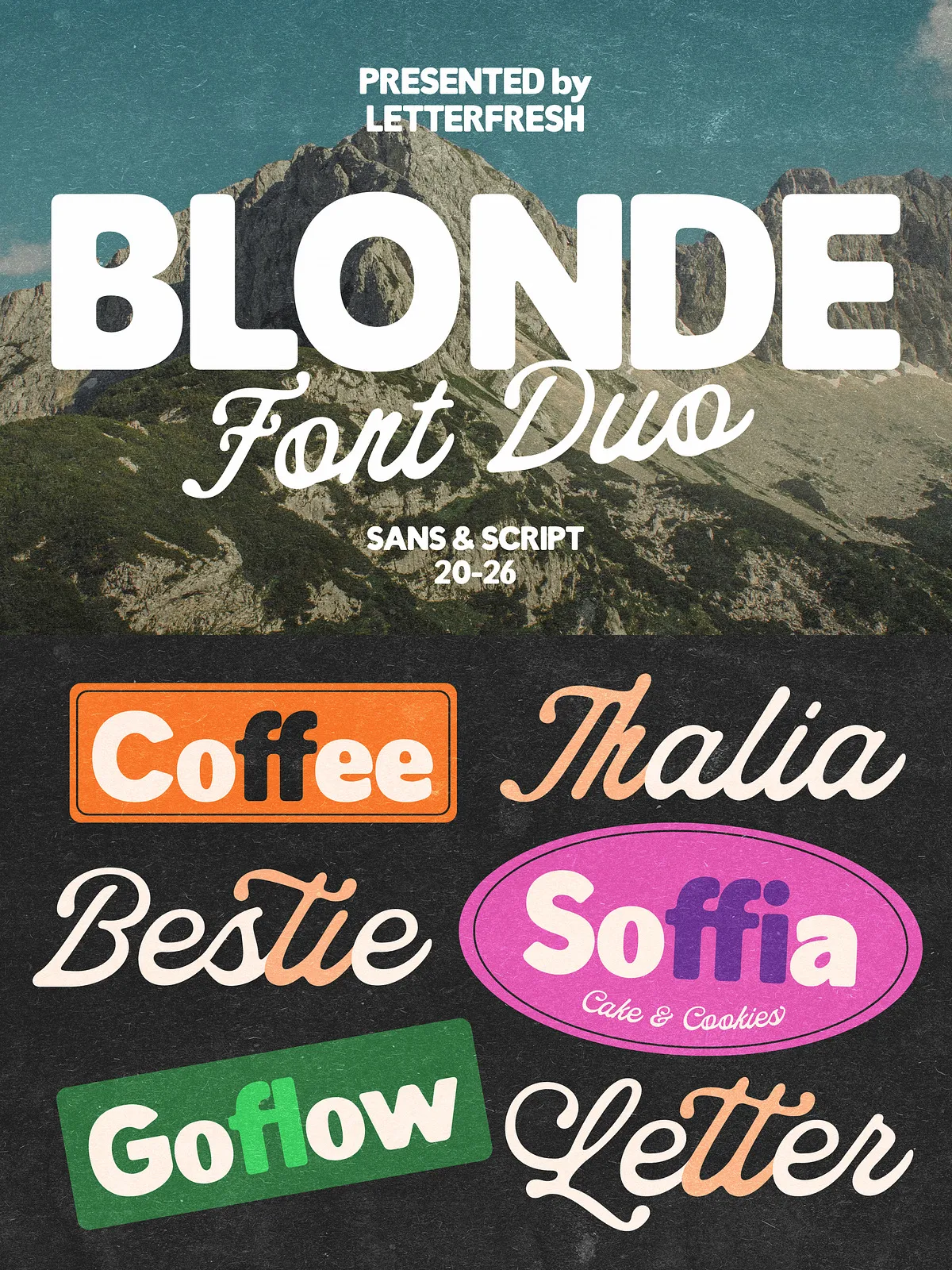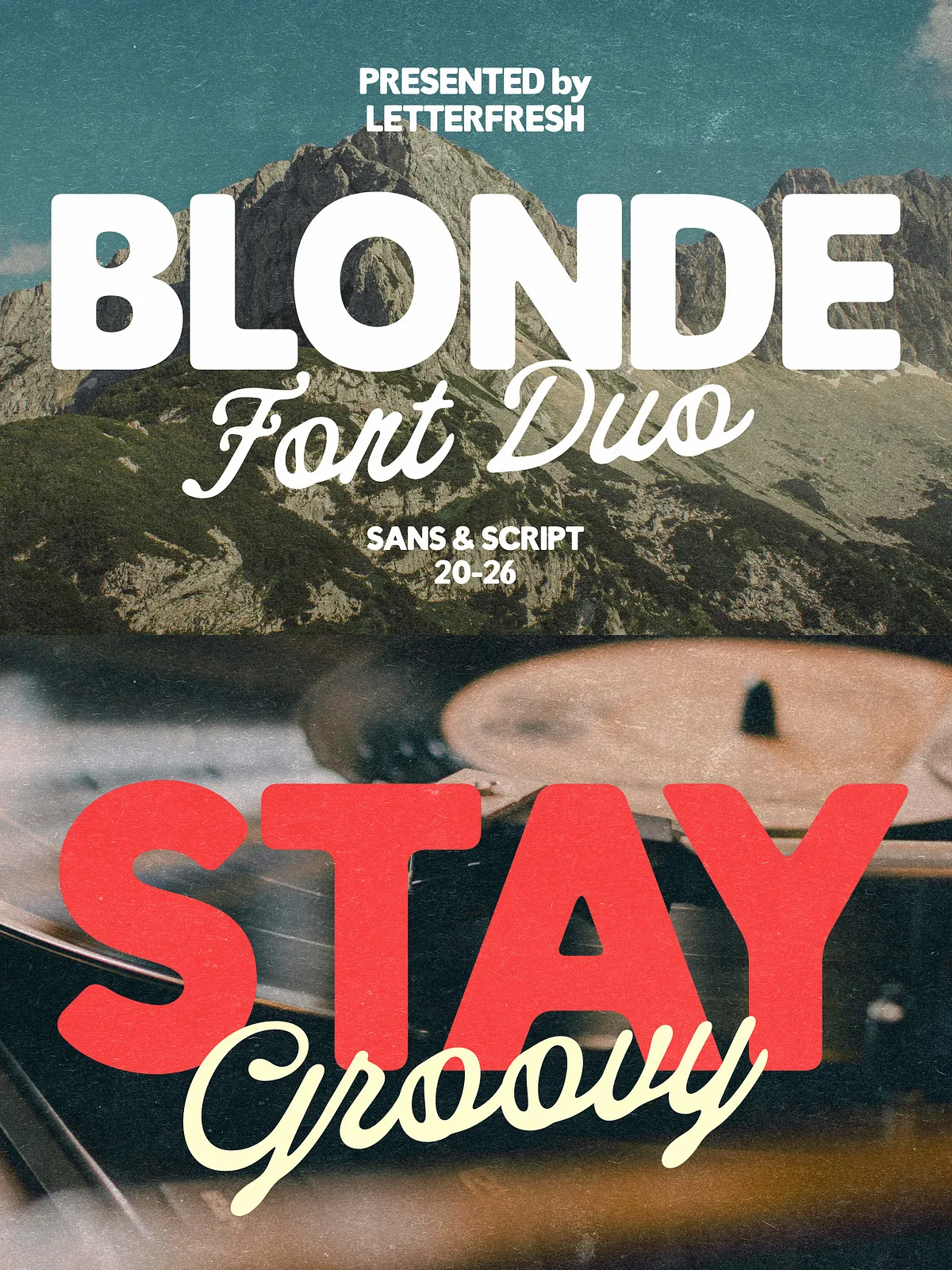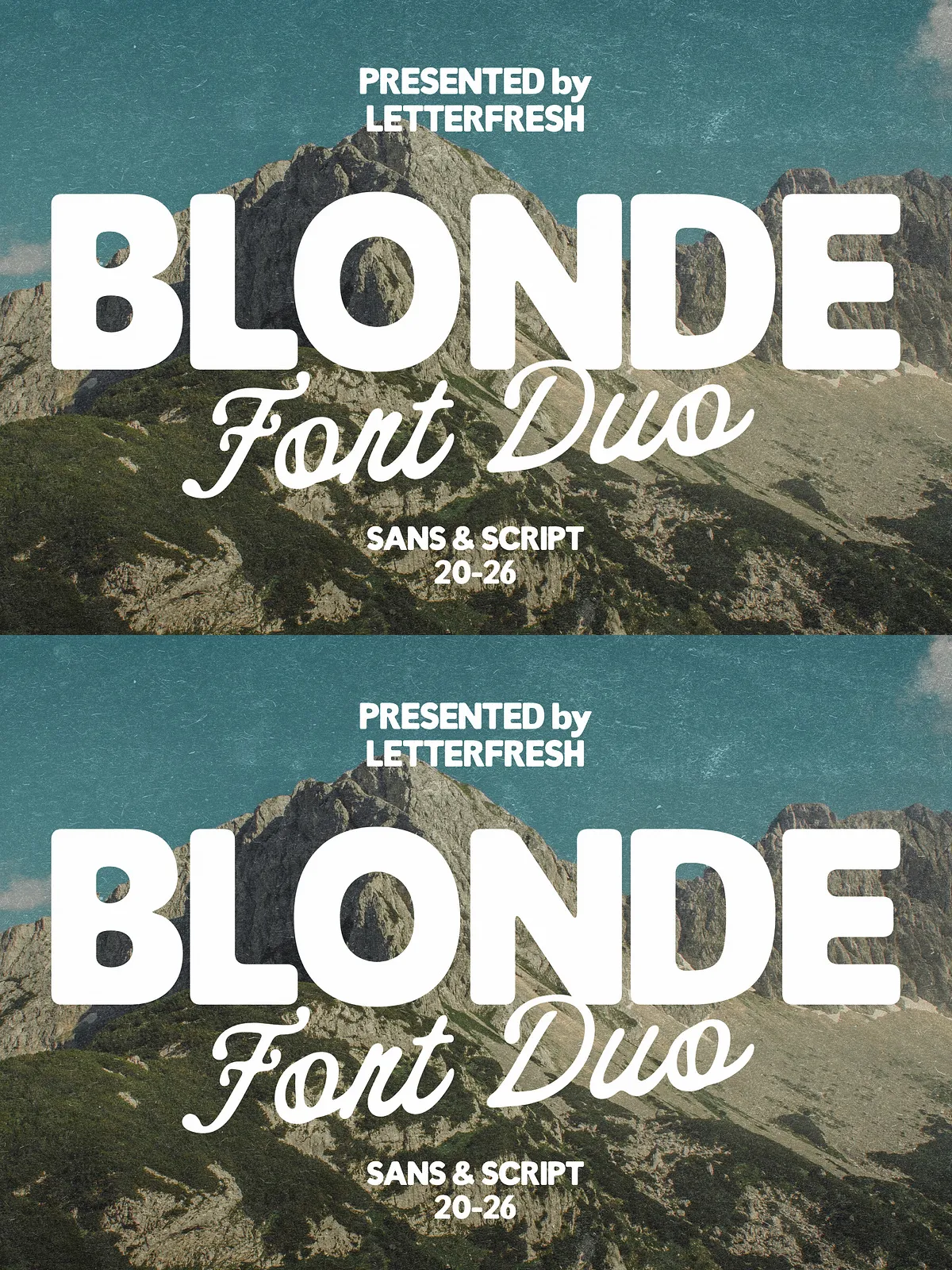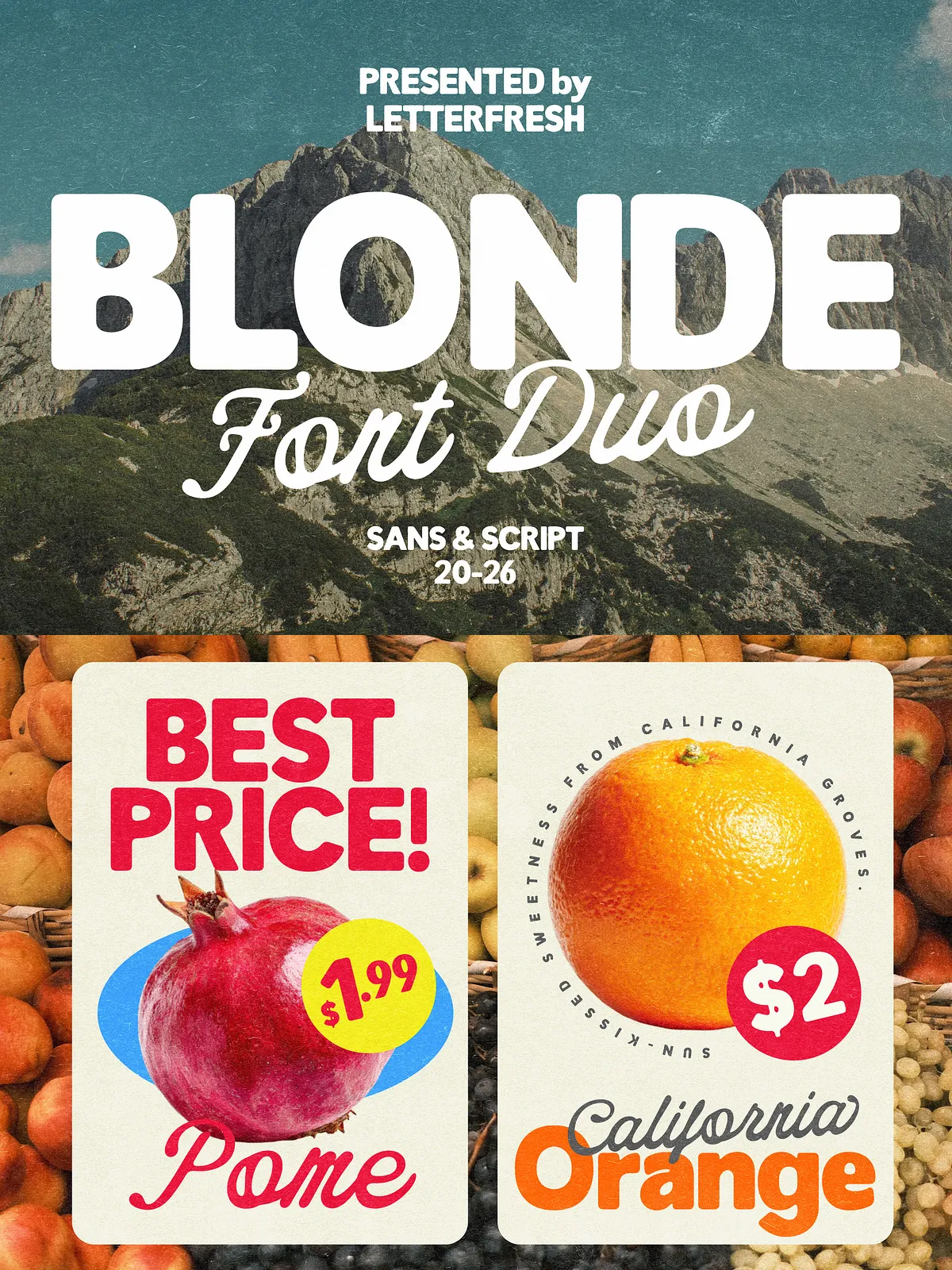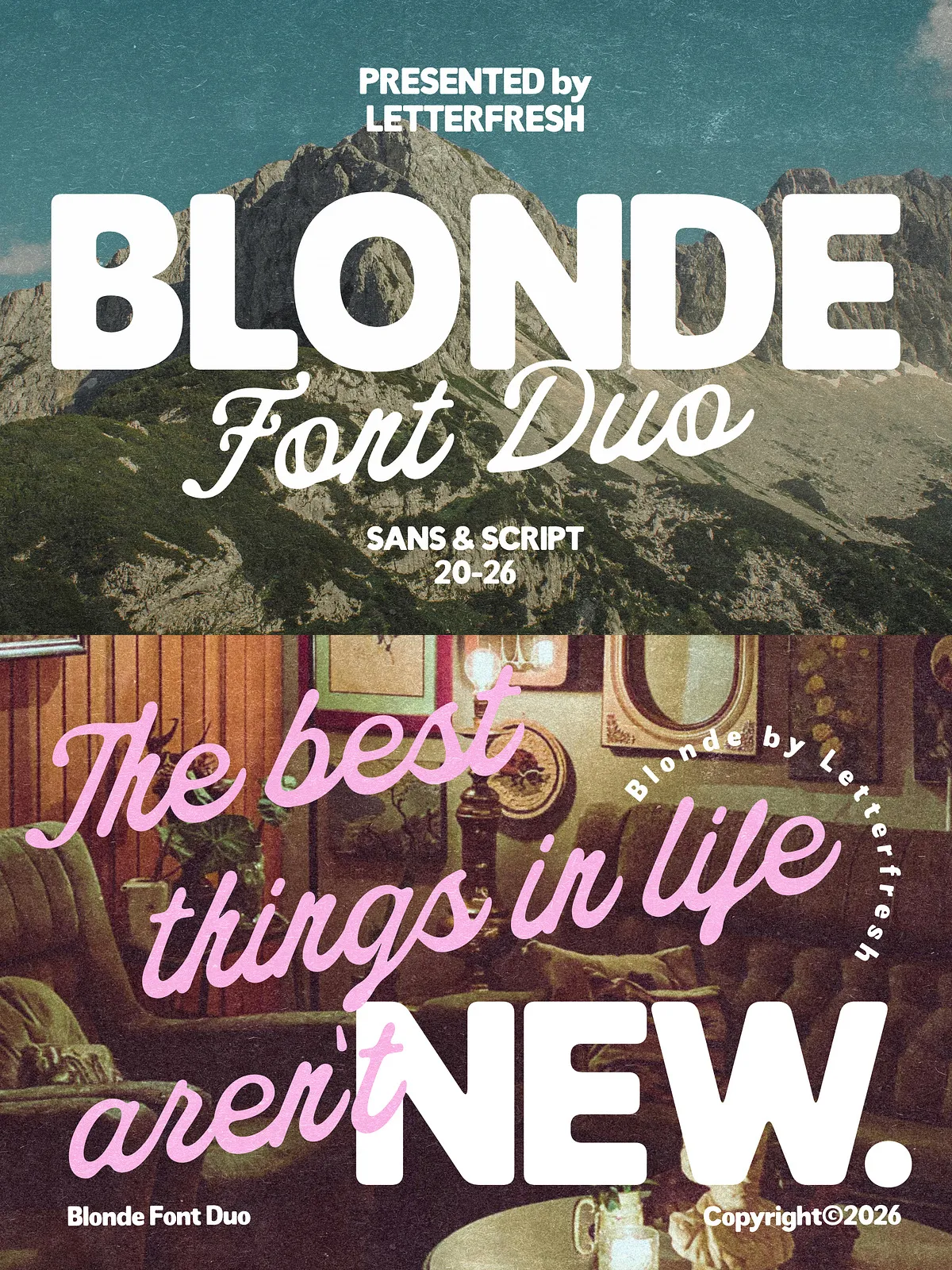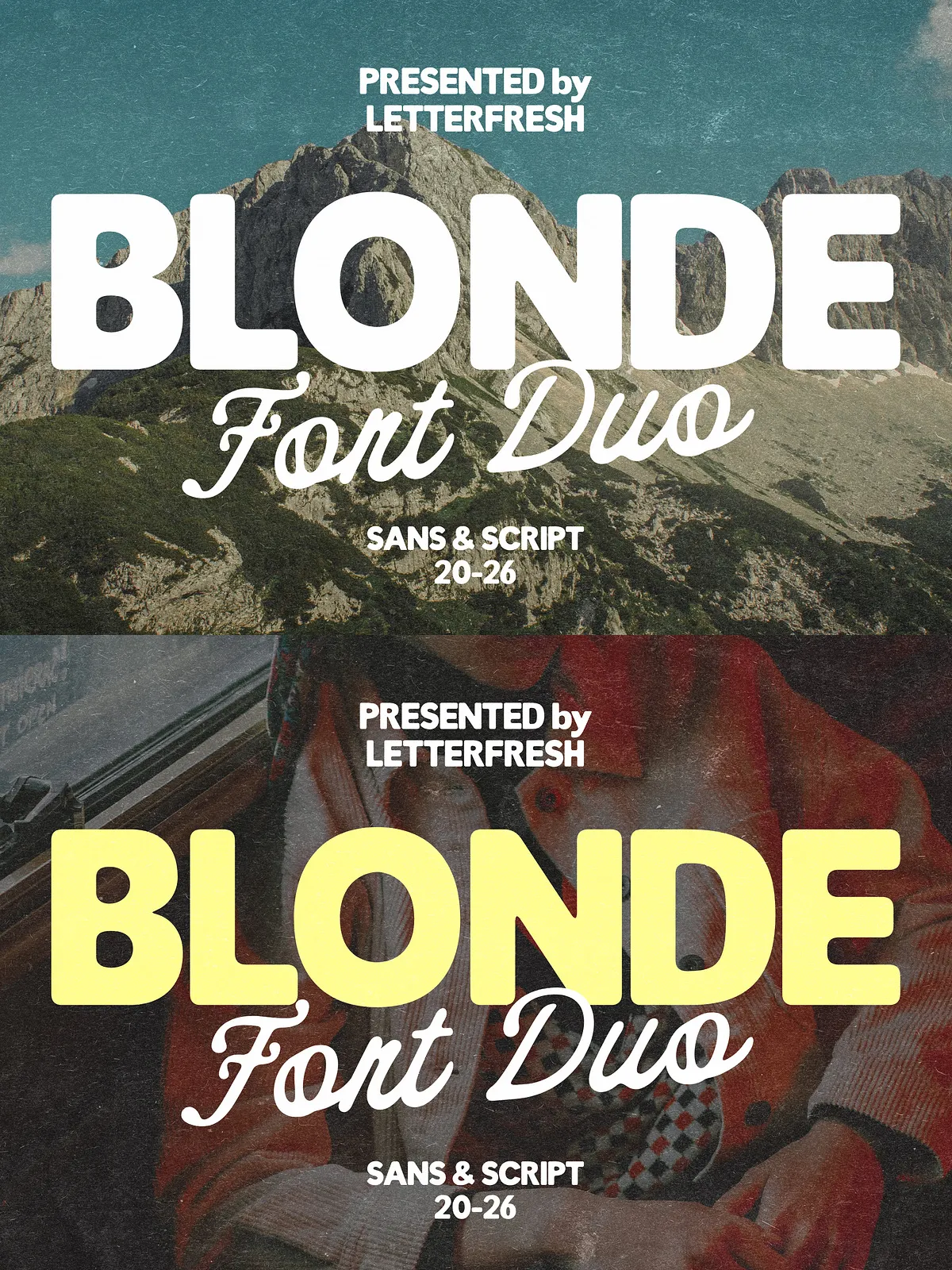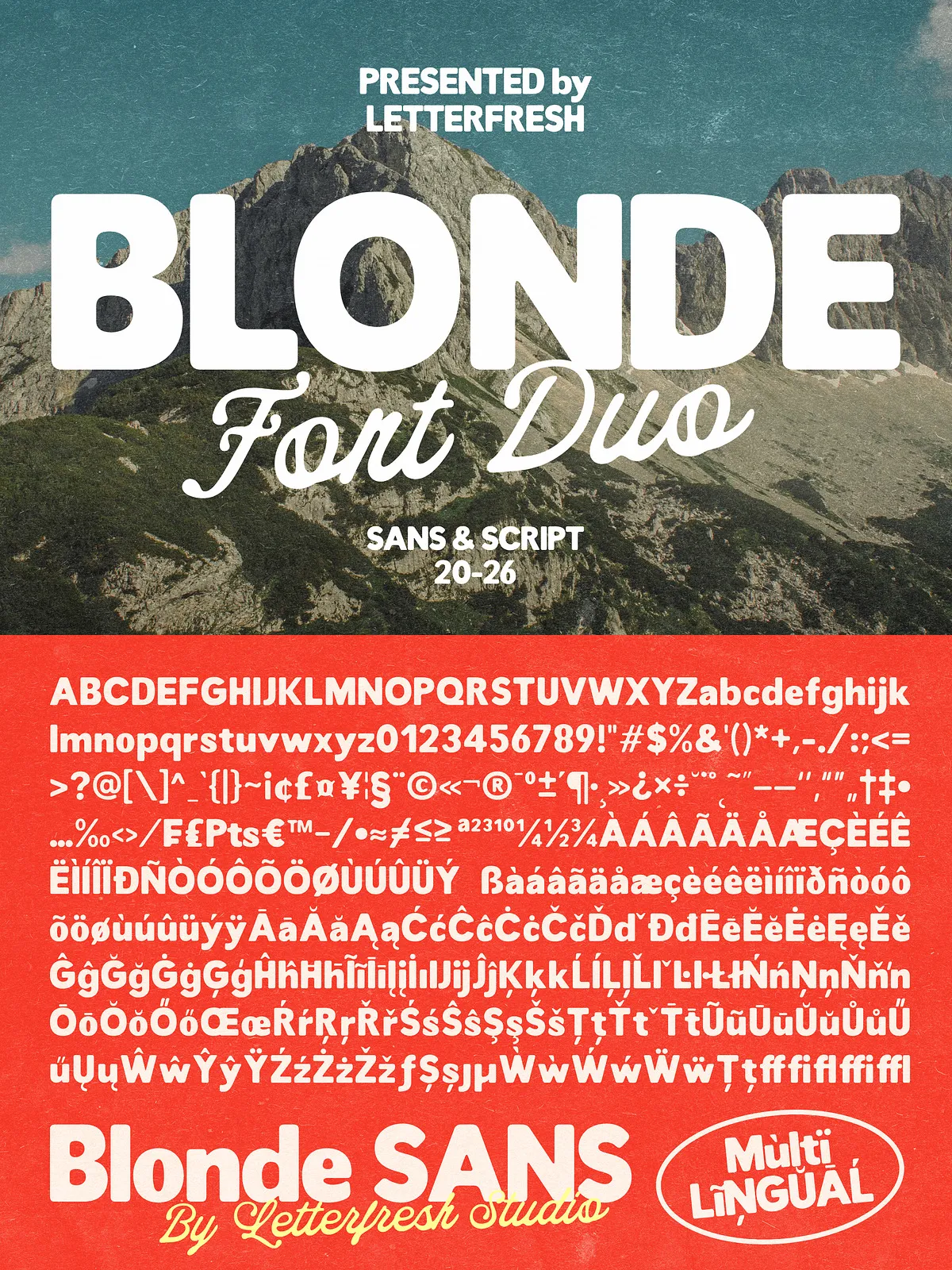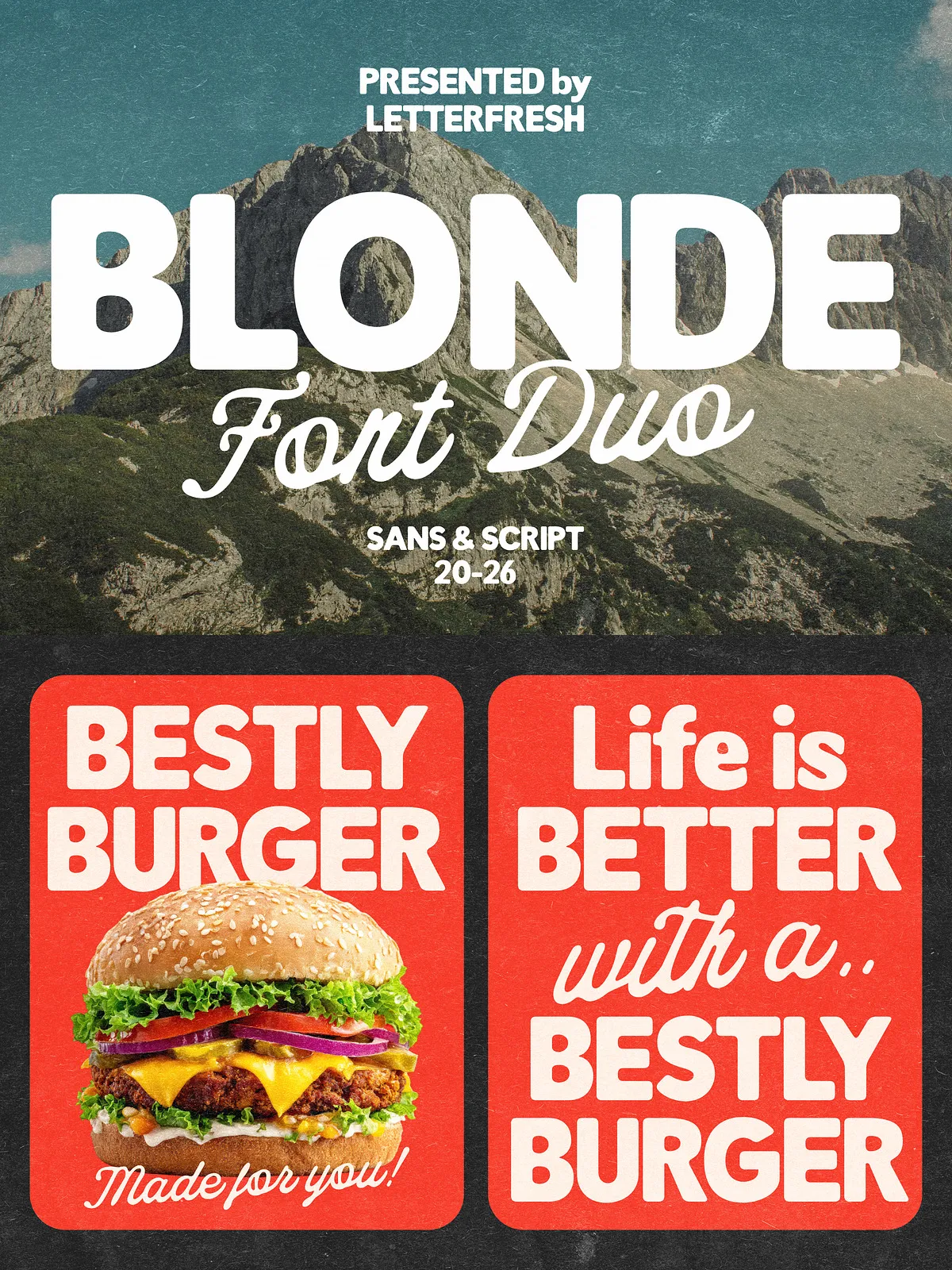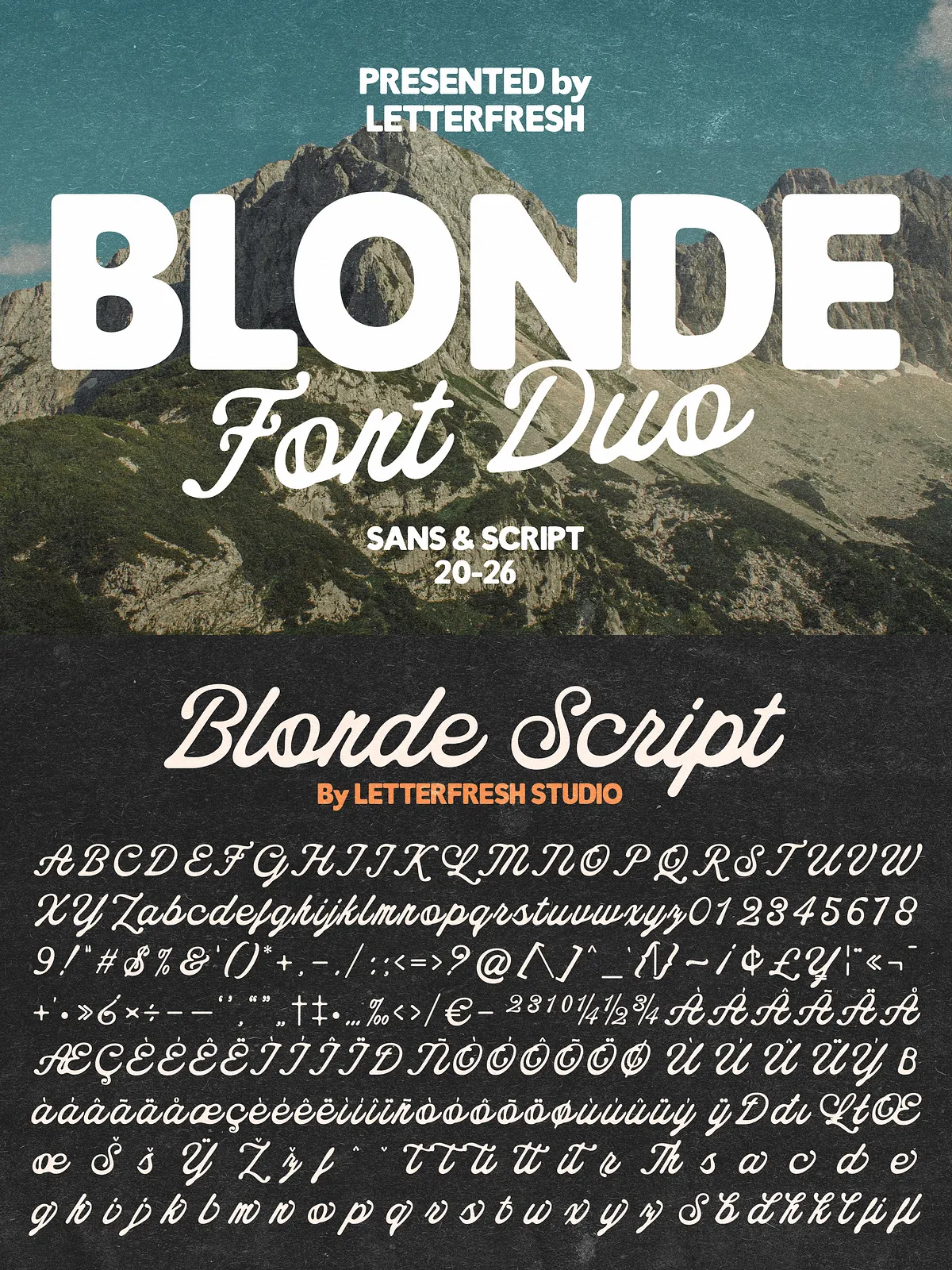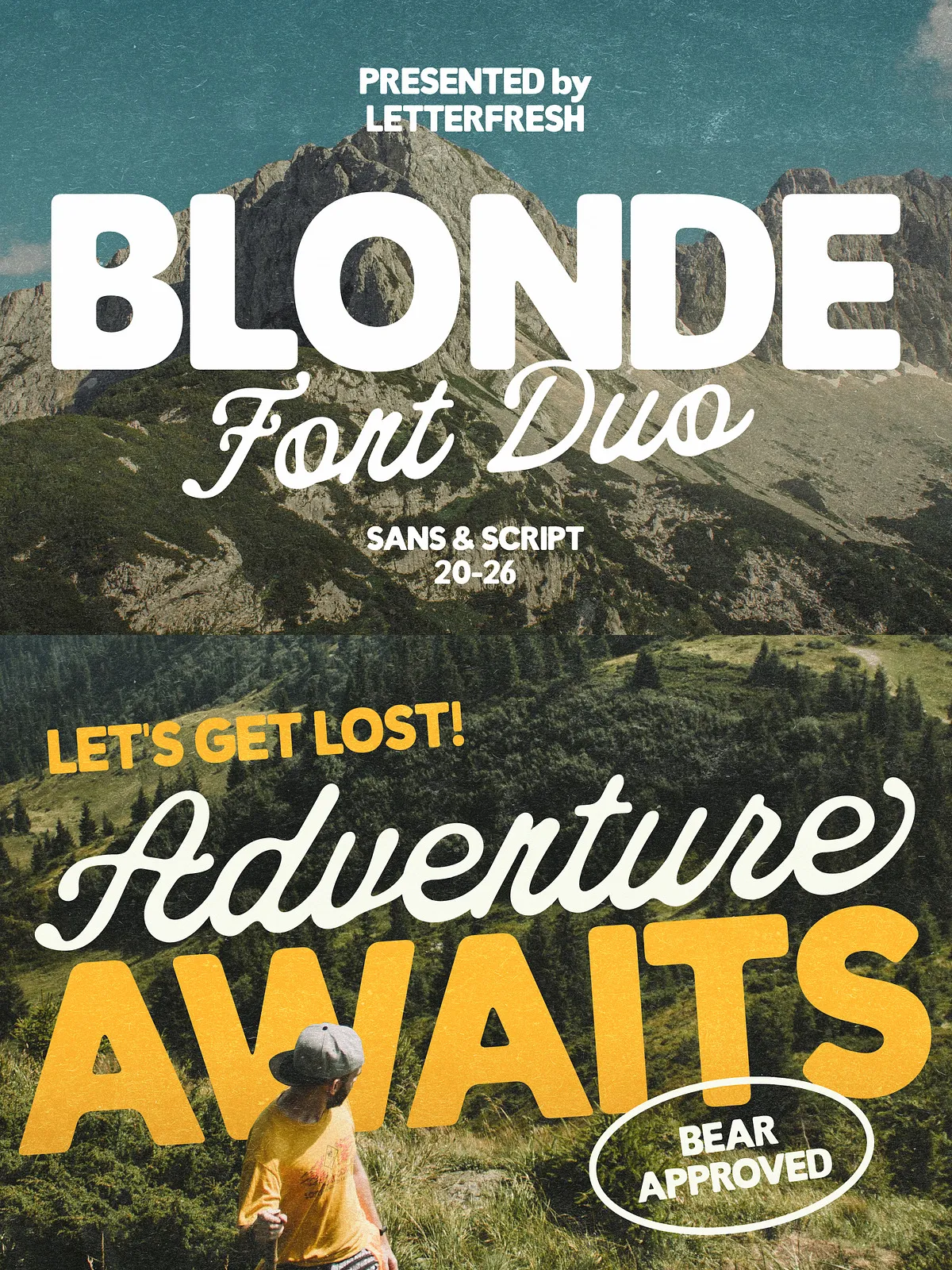
Blonde Vintage Duo
Blonde Vintage Duo combines a bold, rounded sans with a flowing, handwritten script to deliver a warm, approachable aesthetic. This font duo balances confident display power with a personal, handcrafted feel. Designers use it to create product labels, brand marks, social media graphics, greeting cards, packaging, quotes, and any project that benefits from a friendly, vintage-inspired voice.
Design Character & Use Cases
The rounded sans brings boldness and clarity, making headlines and logotypes pop. The handwritten script injects personality and warmth with flowing strokes and subtle irregularities that read as authentically human. Use the sans for strong display text, and the script for signatures, taglines, and accent phrases that demand a personal touch.
Recommended Applications
• Brand identity and logo design that require both strength and charm.
• Product labels and packaging where readability and personality must coexist.
• Greeting cards and invitations that benefit from a handmade aesthetic.
• Social media posts and promotional graphics that demand instant visual appeal.
• Editorial headlines, posters, and quote art where contrast between sans and script enhances composition.
Pairing Suggestions
Pair the Blonde Vintage Duo with neutral, legible body fonts to preserve hierarchy and readability. For a modern look, combine the duo with a minimalist geometric sans for body text; for a more classic approach, use a restrained serif for long copy. Reserve the script for short phrases, signatures, or decorative accents to maintain clarity at smaller sizes.
Design Tips
• Use the rounded sans for prominent headlines and the script for accents to create clear visual contrast.
• Adjust tracking slightly when setting longer passages in the sans to improve legibility.
• Apply the script at display sizes to preserve its delicate stroke details and flow.
• Avoid heavy textures or overly complex effects on the script to retain its handwritten charm.
• Test printed proofs on your target stock—textured or matte papers can enhance the vintage feel.